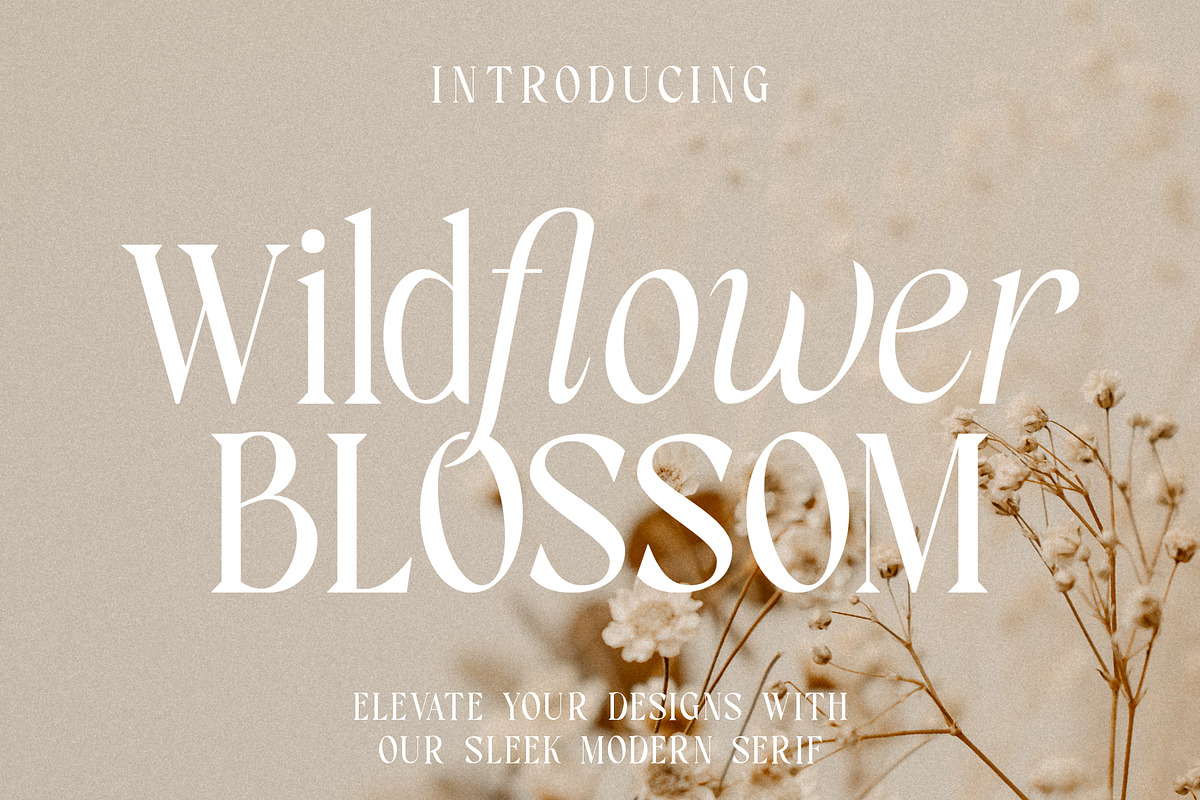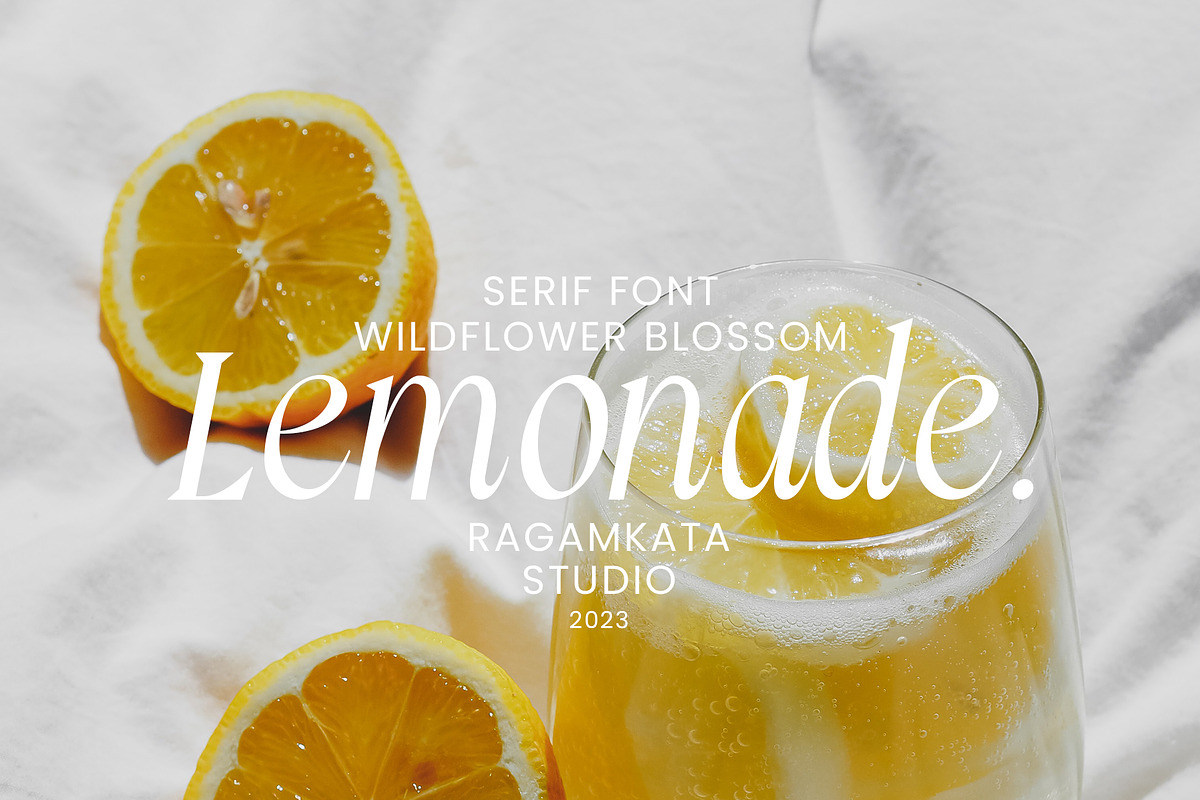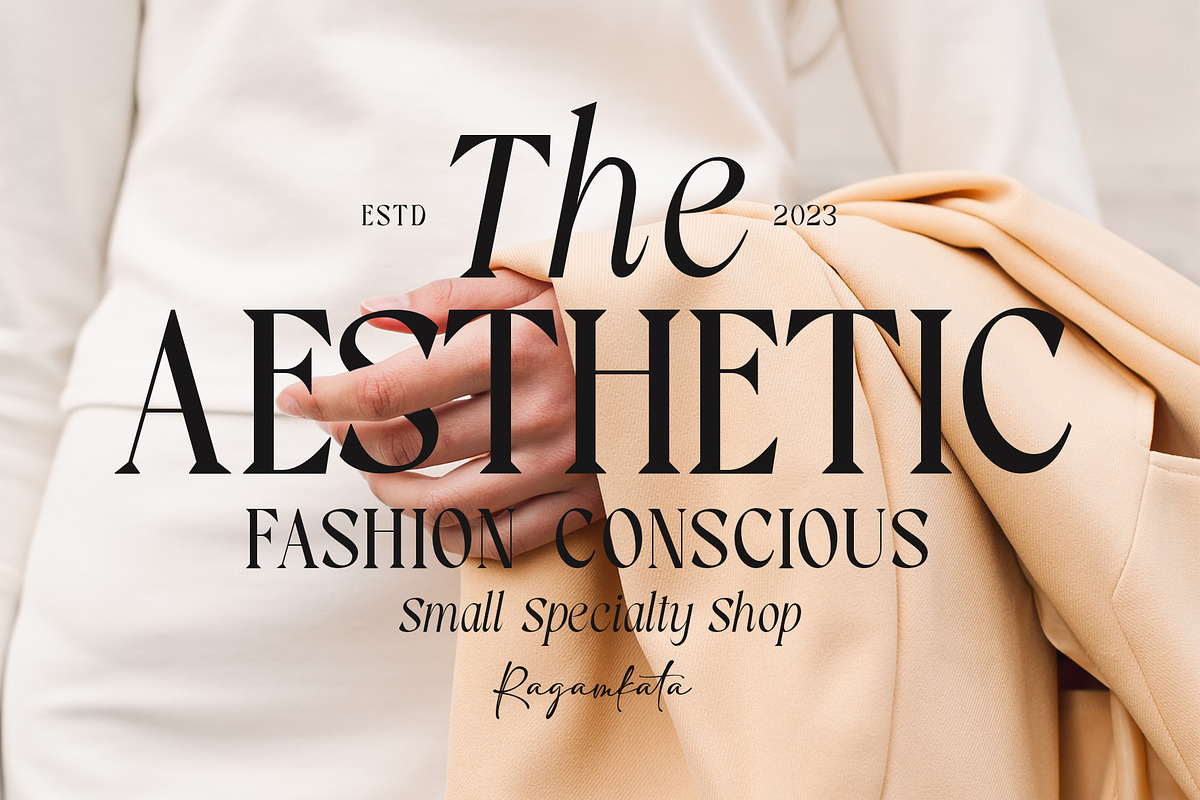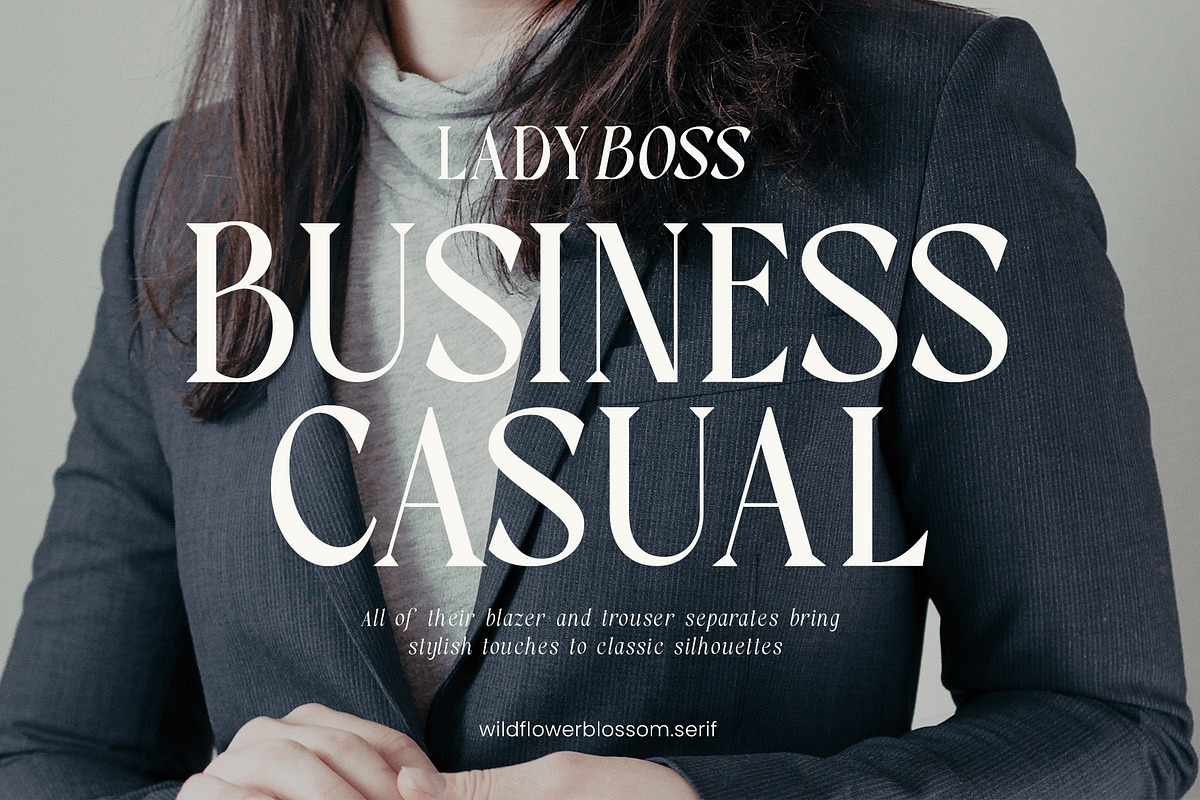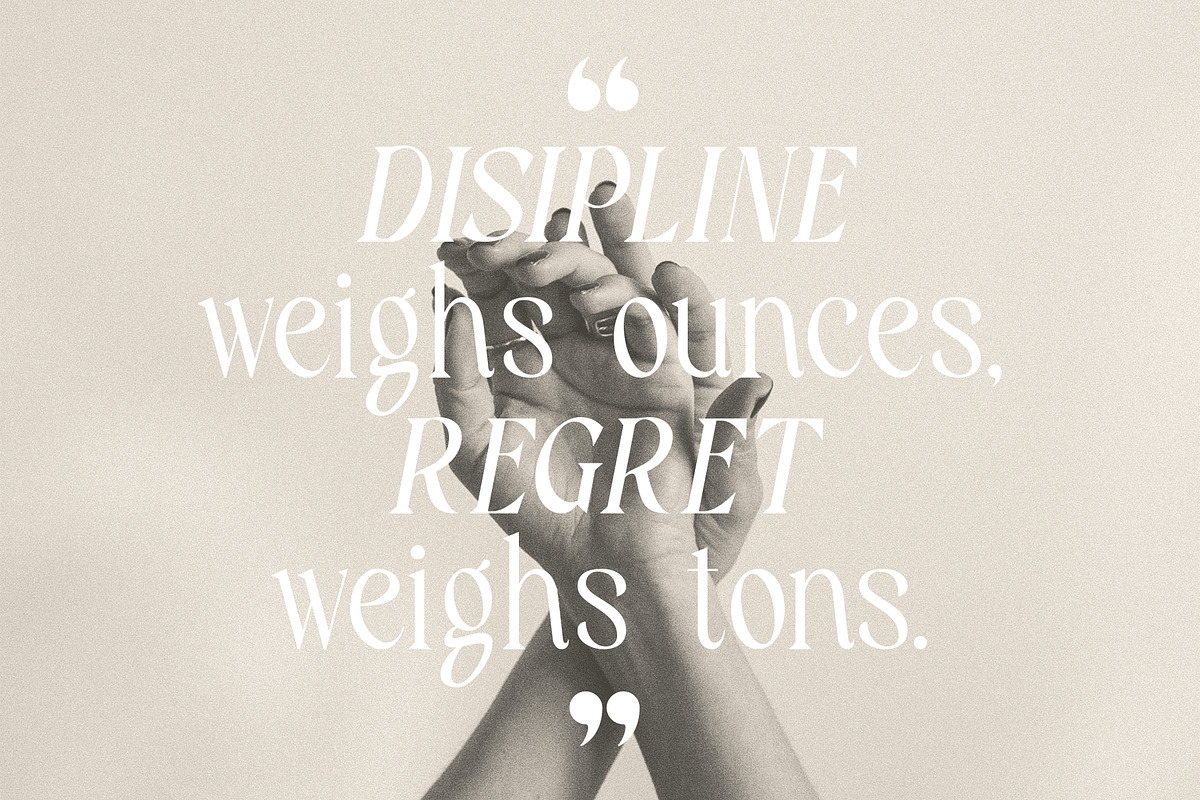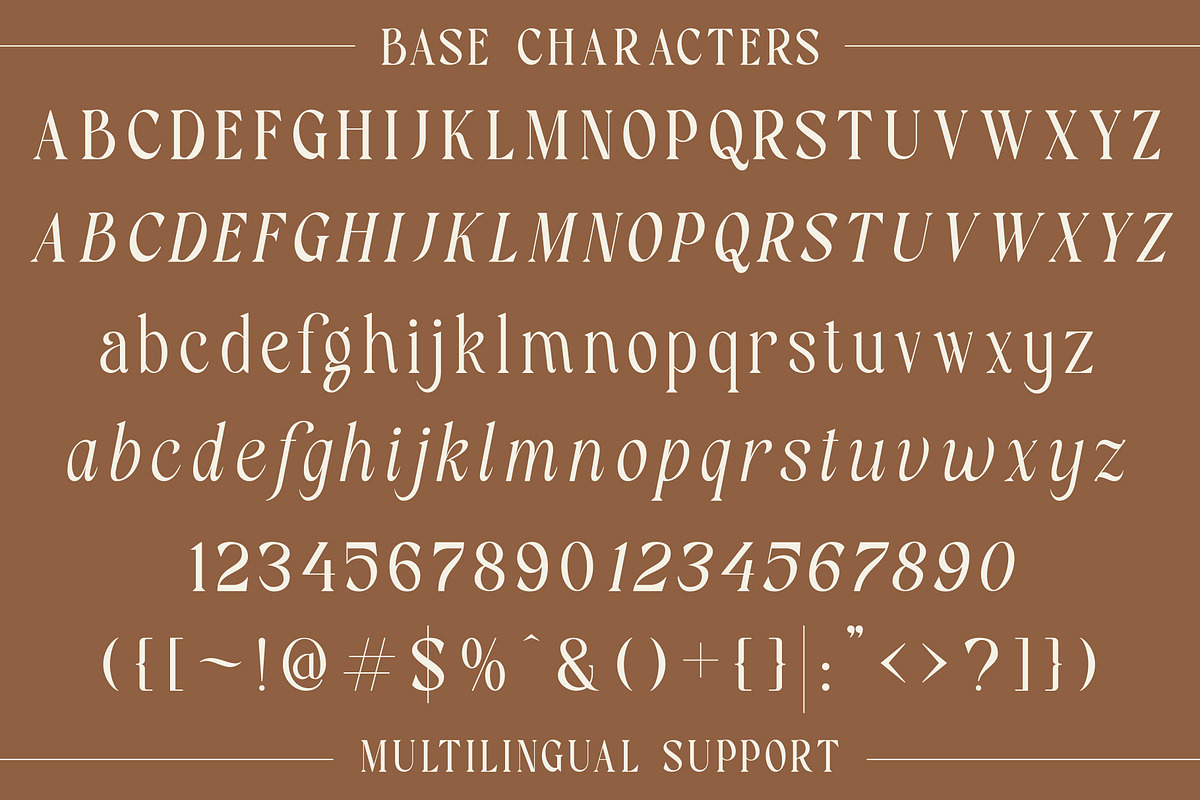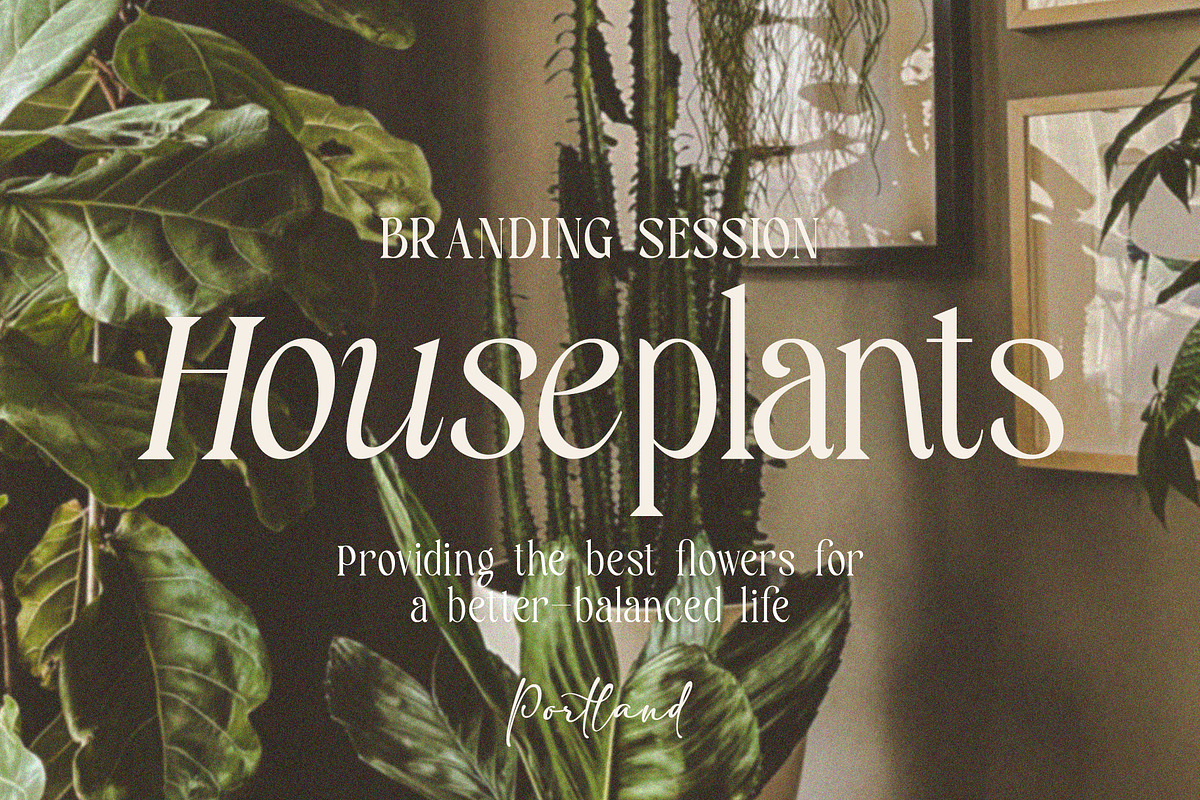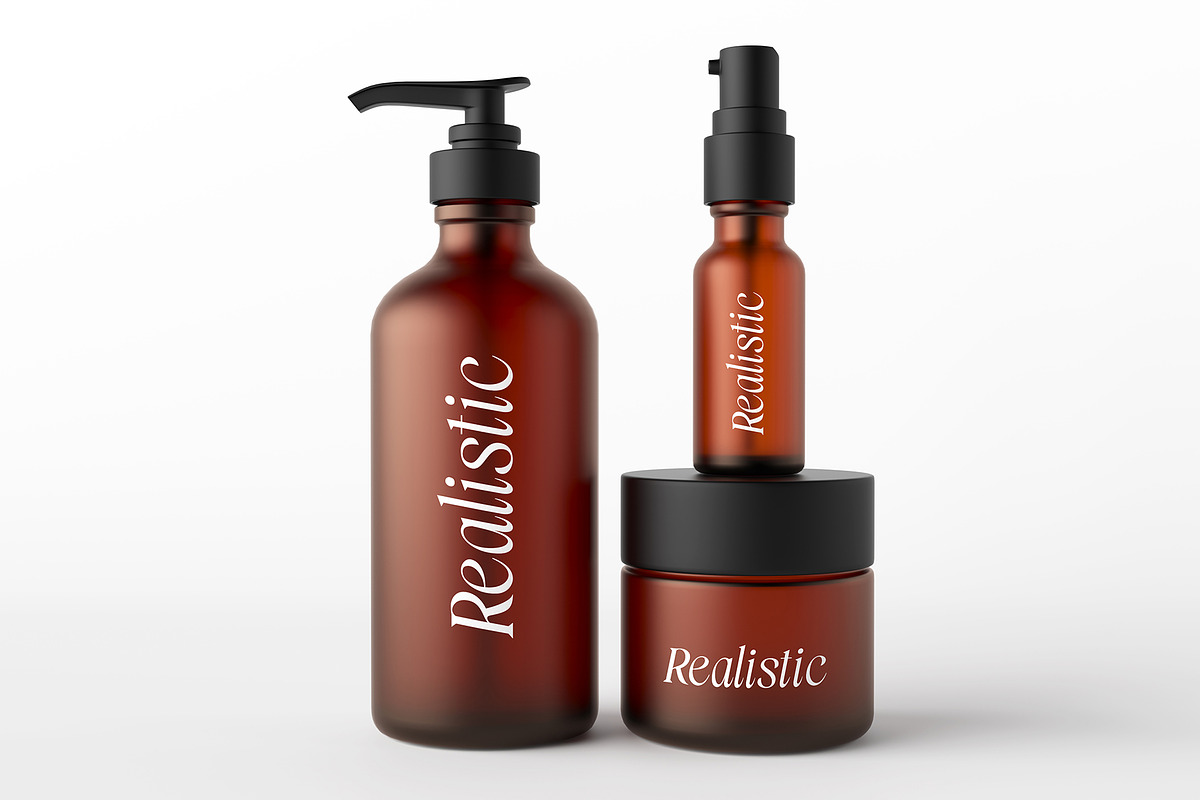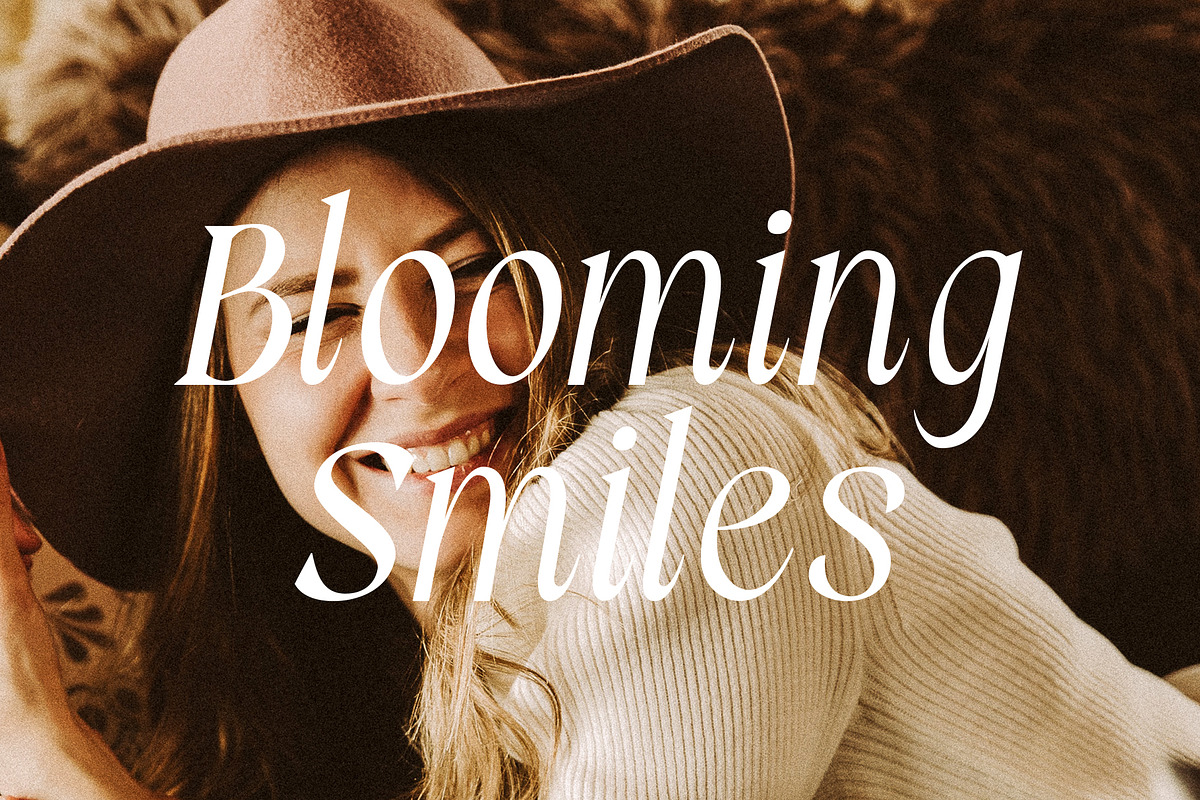
Wildflower Blossom - Modern Serif
Wildflower Blossom modern serif
Wildflower Blossom is a unique serif font with a modern touch. With its elegant and slim letter shapes, it offers a distinctive and captivating beauty. Available in 2 styles, regular and italic, it provides options to customize and tailor your design project to your needs. Use Wildflower Blossom to add a professional impression to your design and make it more appealing to your audience.